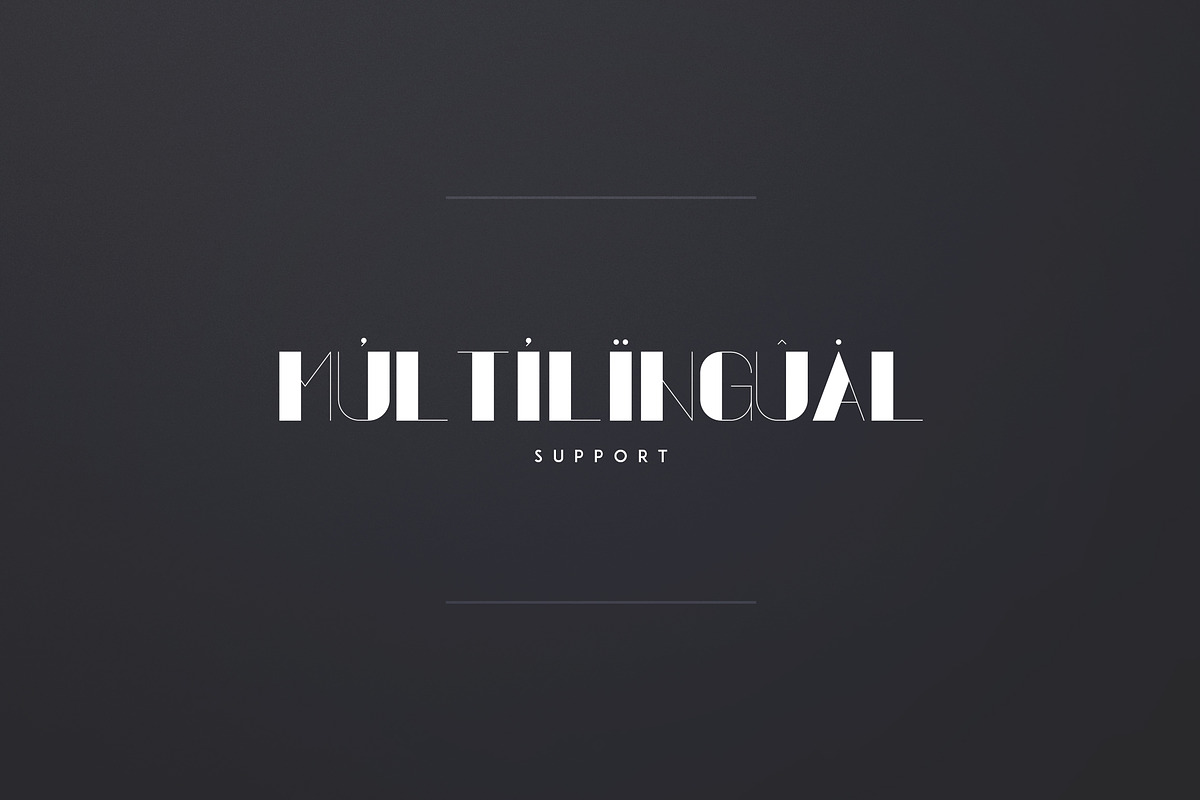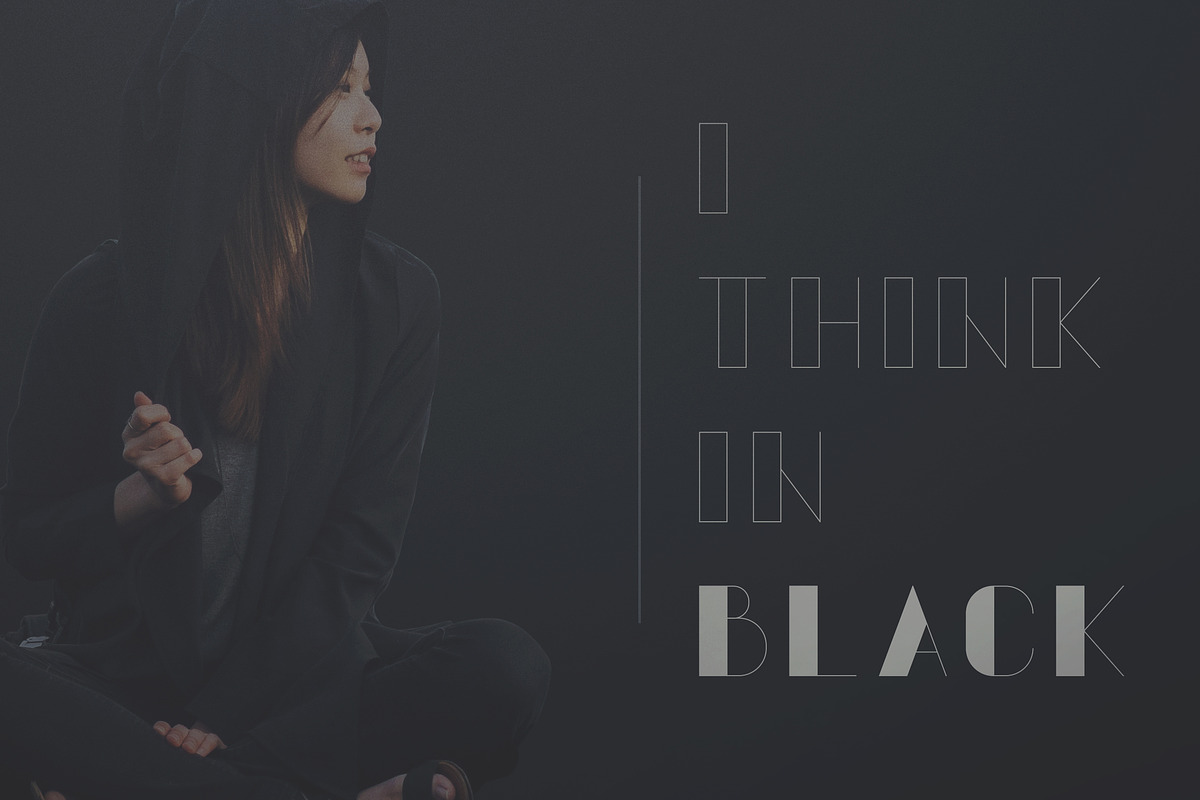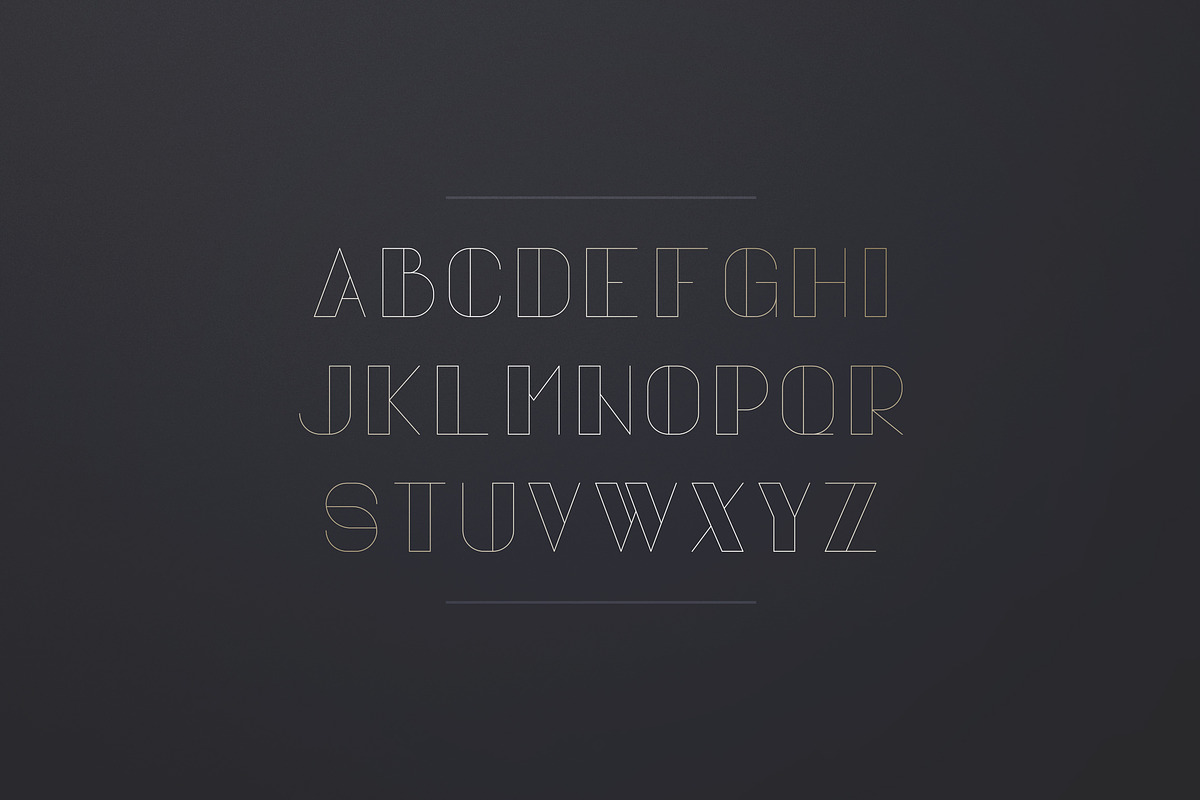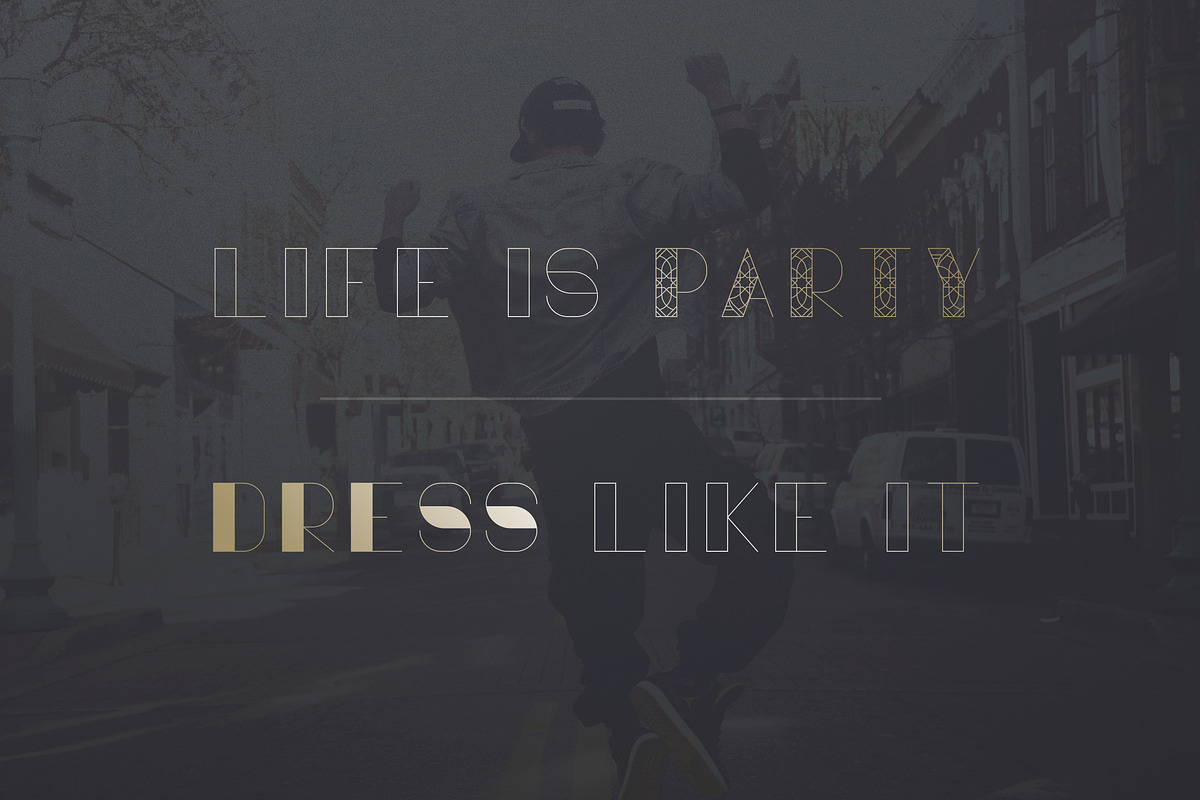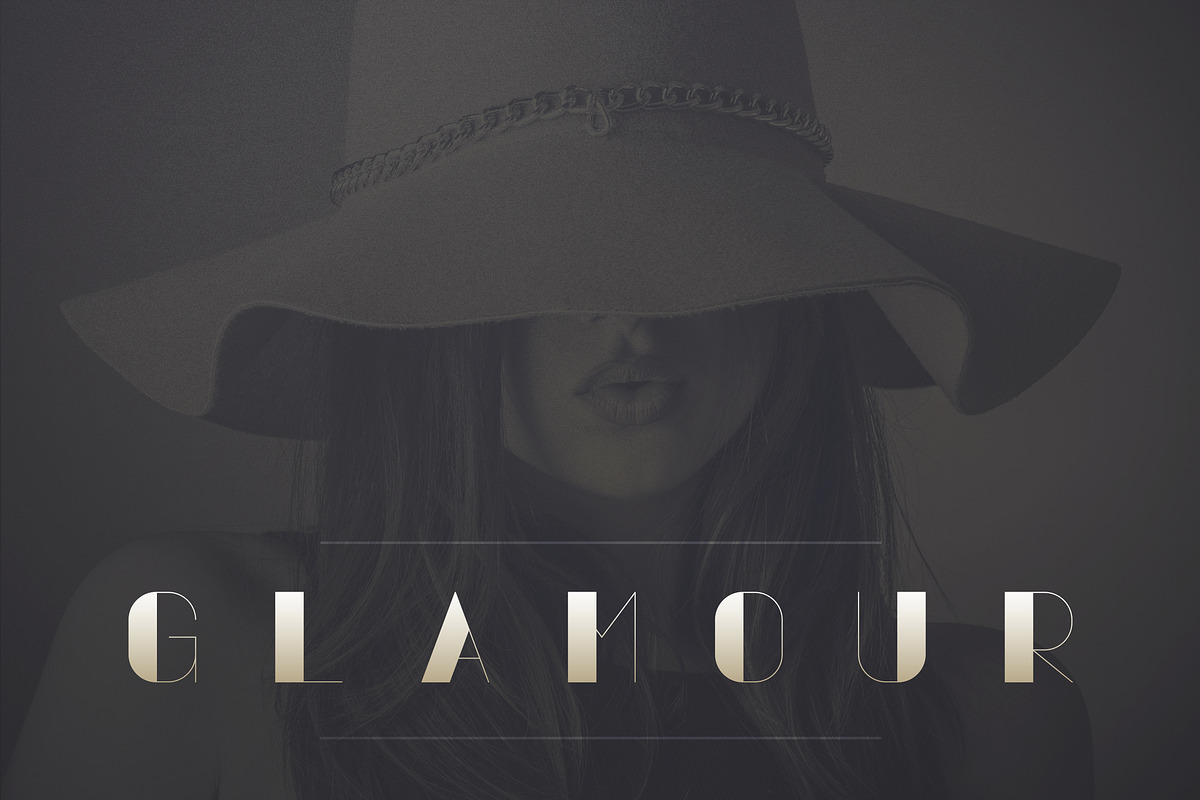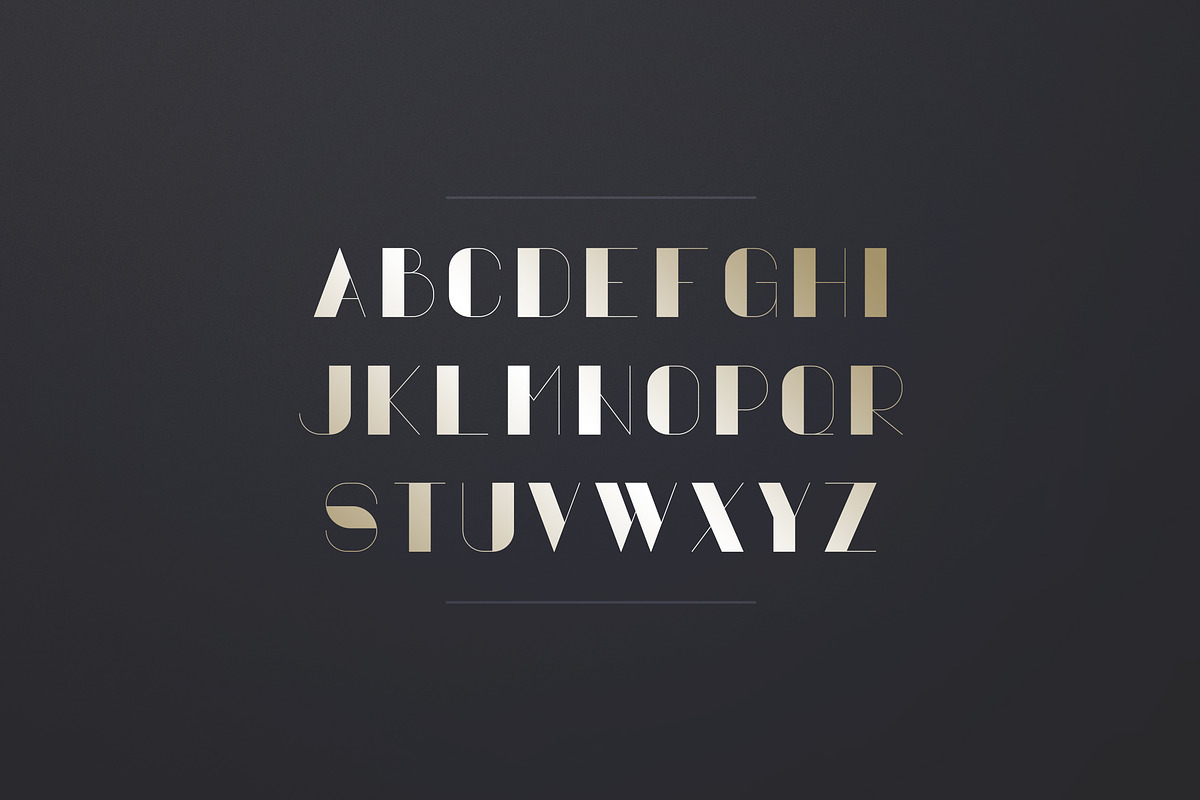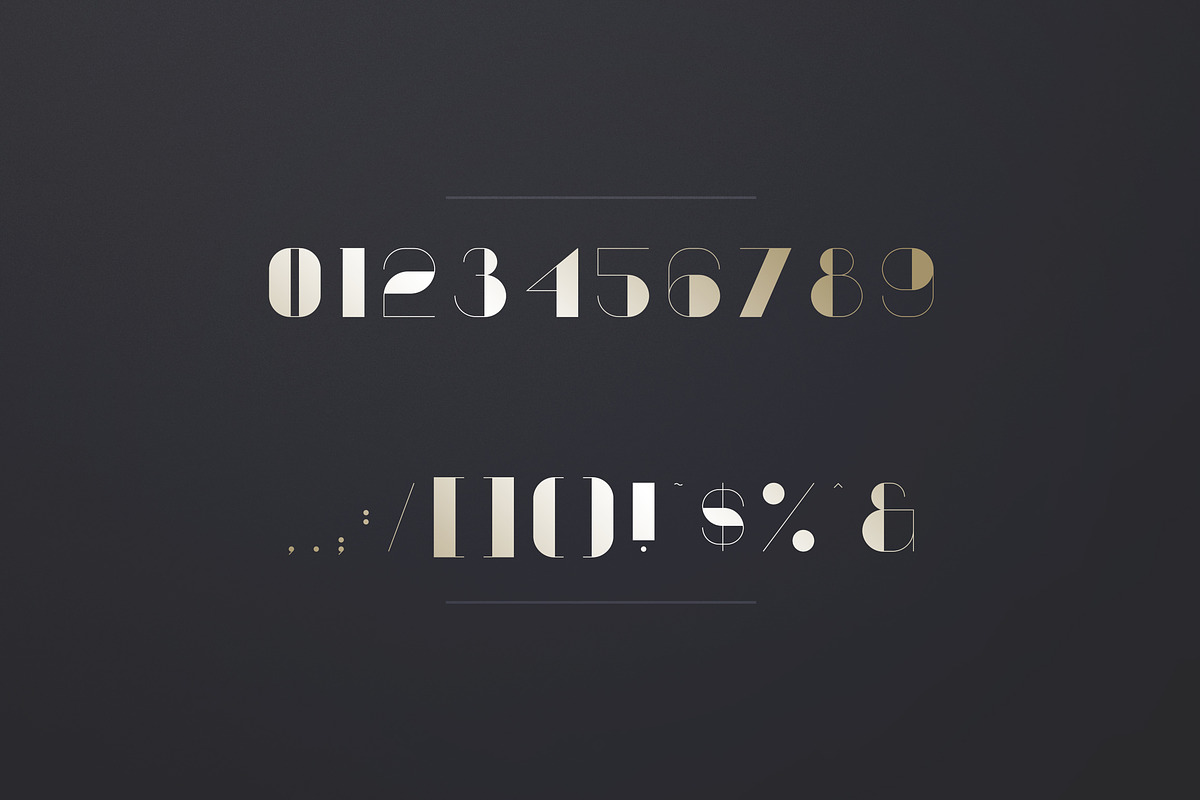
Vovchik is bold high end serif font with 26 alternatives and multilingual support. It's a very versatile font that works great in large and small sizes.
Vovchik is perfect for branding projects, home-ware designs, product packaging, wedding invitations, magazine headers - or simply as a stylish text overlay to any background image.
26 Alternative Glyphs